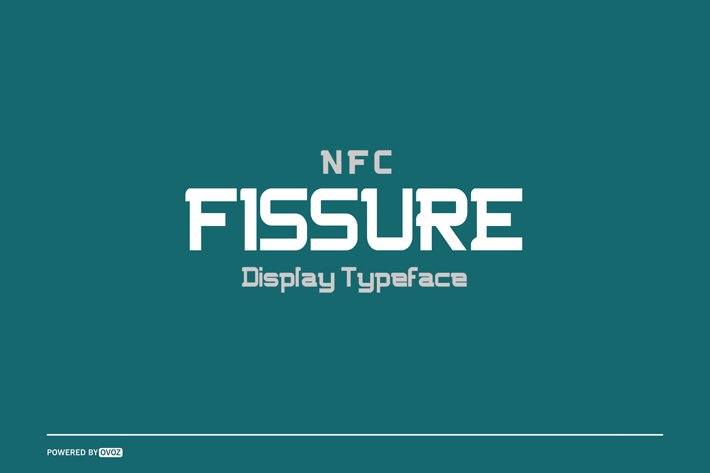
NFC FISSURE DISPLAY FONT
NFC FISSURE Exclusive Display font, is our new item that suitable for your team logo, or community logo.
Great for Logo, Sticker, Jersey, Invitation Card, Brochure, etc.